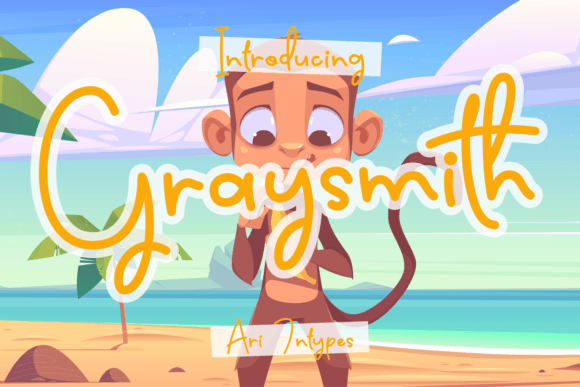
Introducing Graysmith, the whimsical and playful display font that will add a touch of handwritten charm to your designs. Its playful and handmade feel evokes a sense of warmth and authenticity, making it the perfect choice for capturing the essence of personal projects, branding, and social media content.
Crafted by the expert hands of Ari (7NTypes), Graysmith boasts an extensive collection of glyphs and ligatures, accessible with ease through its PUA encoding. This expansive character set empowers you to explore endless creative possibilities, adding intricate details and unique flourishes to your designs.
Whether you're a seasoned designer or just starting your creative journey, Graysmith is the ideal font to elevate your projects with its captivating personality. Its versatility extends across a wide range of design applications, from eye-catching headlines to charming logos, invitations, and social media posts.
Experience the joy of crafting designs that resonate with a touch of playful elegance. With Graysmith, you'll discover a world of creative possibilities, limited only by your imagination. Download Graysmith today and embark on an artistic adventure that will leave a lasting impression.